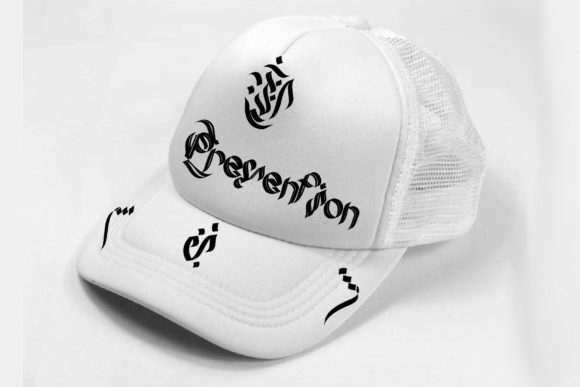
Unleash Your Creativity with Claw White Tiger Font
Are you a designer, crafter, or artist looking for a unique and versatile font to elevate your creative projects? Look no further than Claw White Tiger Font, a highly detailed and brushed blackletter font that’s sure to make your work stand out. In this article, we’ll dive into the features and benefits of Claw White Tiger Font, and explore how it can be used to bring your artistic vision to life.
What is Claw White Tiger Font?
Claw White Tiger Font is a premium blackletter font that’s been carefully crafted to offer a distinctive and eye-catching aesthetic. With its highly detailed and brushed texture, this font is perfect for creating stunning visual effects that will capture the attention of your audience. Whether you’re working on a painting, branding project, label design, or any other creative endeavor, Claw White Tiger Font is the perfect choice.
Key Features of Claw White Tiger Font
- Highly detailed and brushed texture: Claw White Tiger Font boasts a unique, hand-crafted texture that gives it a distinctive look and feel.
- Blackletter style: This font features a classic blackletter style with a modern twist, making it perfect for a wide range of creative projects.
- Versatile and adaptable: Claw White Tiger Font can be used for everything from paintings and branding to labels and more.
Benefits of Using Claw White Tiger Font
So why choose Claw White Tiger Font for your creative projects? Here are just a few benefits of using this amazing font:
- Adds a touch of elegance and sophistication: The highly detailed and brushed texture of Claw White Tiger Font gives it a luxurious feel that’s perfect for high-end branding and design projects.
- Creates a bold and eye-catching effect: The blackletter style and brushed texture of this font make it perfect for creating bold, eye-catching graphics that will grab the attention of your audience.
- Increases versatility: With Claw White Tiger Font, the only limit is your imagination! This font can be used for a wide range of creative projects, from paintings and illustrations to branding and label design.
How to Use Claw White Tiger Font
Using Claw White Tiger Font is easy! Here are a few tips to get you started:
- Pair it with other fonts: Claw White Tiger Font pairs perfectly with other fonts, so feel free to experiment with different combinations to create a unique look.
- Experiment with colors and textures: The brushed texture of this font looks amazing in a variety of colors and textures, so don’t be afraid to get creative!
- Use it for headlines and titles: The bold, eye-catching effect of Claw White Tiger Font makes it perfect for headlines and titles.
Still not sure how to use Claw White Tiger Font? Here are a few ideas to get you started:
- Create a stunning logo: Use Claw White Tiger Font to create a bold and eye-catching logo that will make your brand stand out.
- Design a beautiful label: This font is perfect for label design, and can add a touch of elegance and sophistication to your product packaging.
- Illustrate a striking painting: Claw White Tiger Font can be used to add bold, eye-catching text to your paintings and illustrations.
| Font Name | Claw White Tiger Font |
| Author | arnon.021993 |
Claw White Tiger Font is a highly detailed and brushed blackletter font that’s perfect for designers, crafters, and artists looking to add a touch of elegance and sophistication to their creative projects. With its versatile and adaptable design, this font can be used for everything from paintings and branding to labels and more. So why wait? Download Claw White Tiger Font today and unleash your creativity!